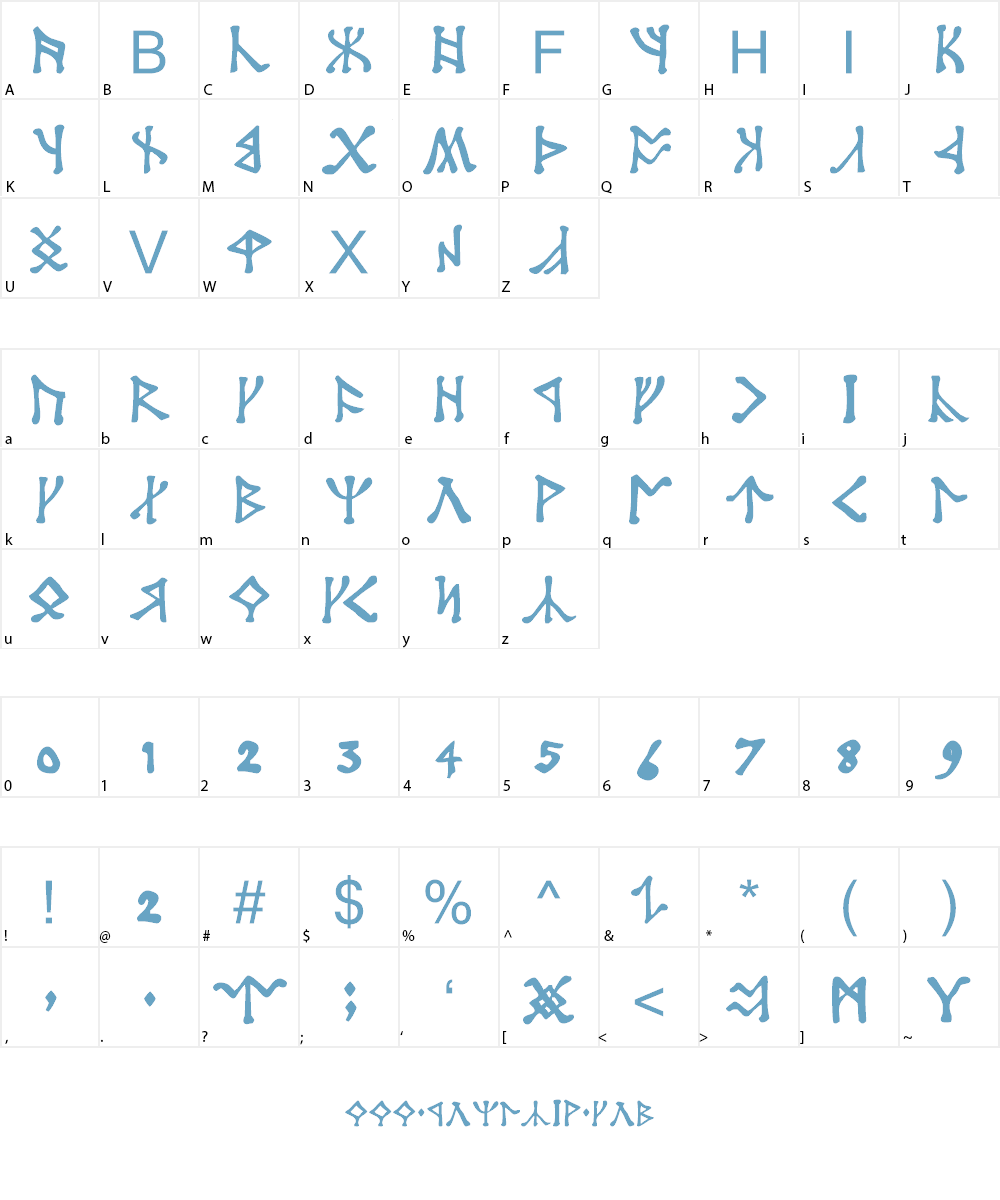
Decades ago, when J. R. R. Tolkien wrote his fantasy book series; "The Hobbit" and "The Lord of the Rings", he described races of Elves, Dwarves and Men possessing a rich history, language and culture. Early in their history they devised alphabets for writing their languages. One of the earliest was written with pens or brushes. It was called the Tengwar. The Tengwar were a very flexible writing system that was easily adapted by the many different races of Middle-earth for use with their languages.
During the First Age, Elvish craftsmen in Beleriand began developing an informal alphabet for use with their Sindarin language. This alphabet became known as the Cirth (meaning: "runes"). The Cirth alphabet in Middle-earth fulfills the same role as Germanic, Norse and Anglo-Saxon runes in our history.
Towards the end of the First Age in Beleriand, Daeron, the Minstrel and Loremaster of King Thingol of Doriath, organized the Cirth into what became known as the Angerthas Daeron. Daeron's alphabet was originally used by the Grey Elves (Sindar) in Beleriand. Later the Deep Elves (Noldor) in Eregion adopted the Cirth and added several more runes to the system. These additional letters were used to represent sounds not found in the Elvish Sindarin, but in the tongues of the other people living in the area. The Angerthas Daeron was used primarily for carved inscriptions. For most other forms of written communication the Tengwar were used.